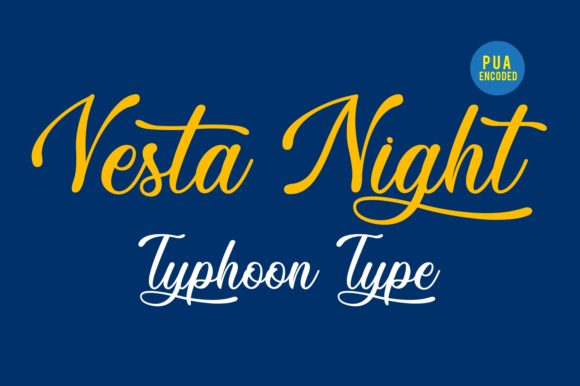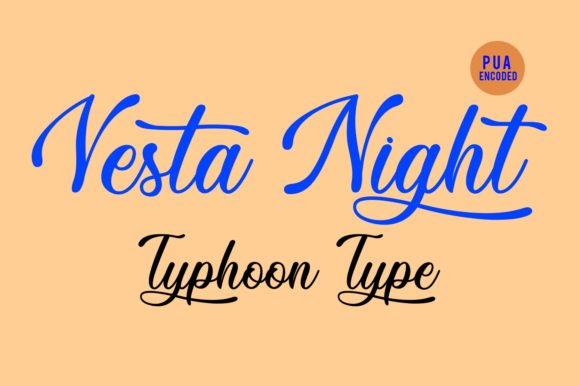
Vesta Night Font
Vesta Night is a gorgeous script font. This font is PUA encoded which means you can access all of the amazing glyphs and swashes with ease! It also features a wealth of special features including alternate glyphs and ligatures.